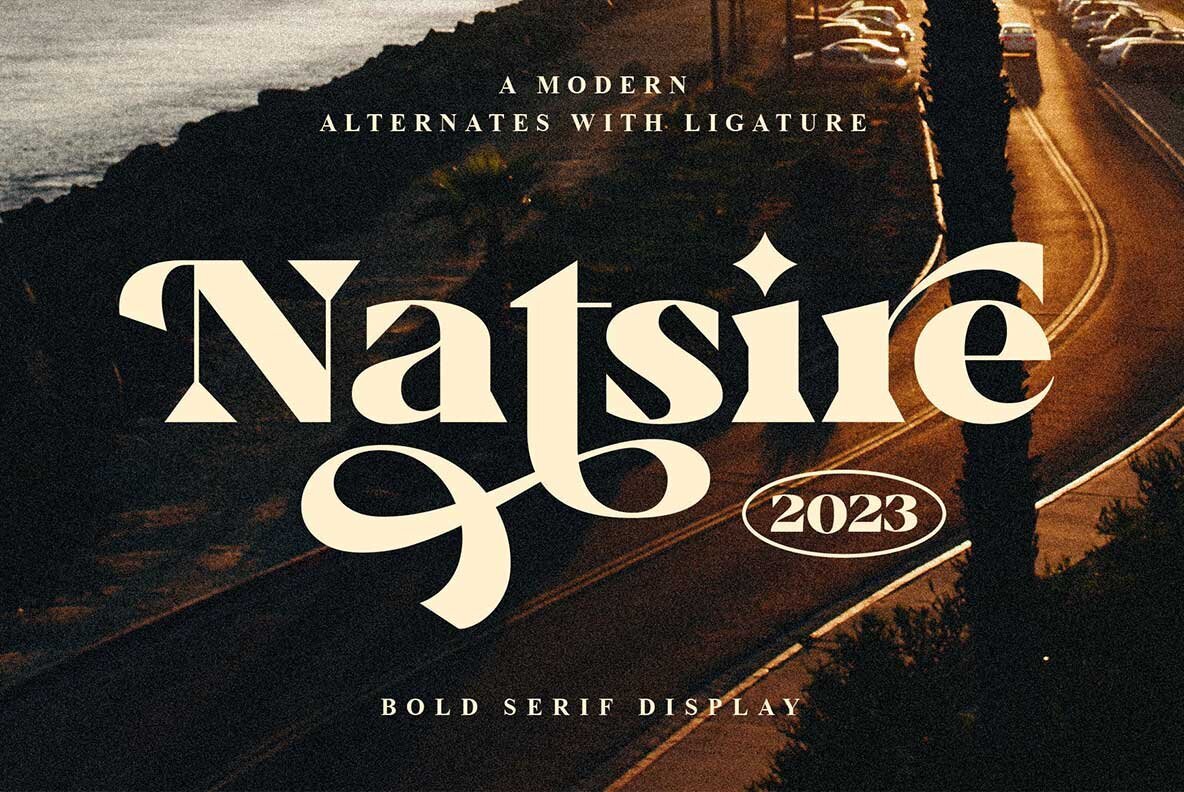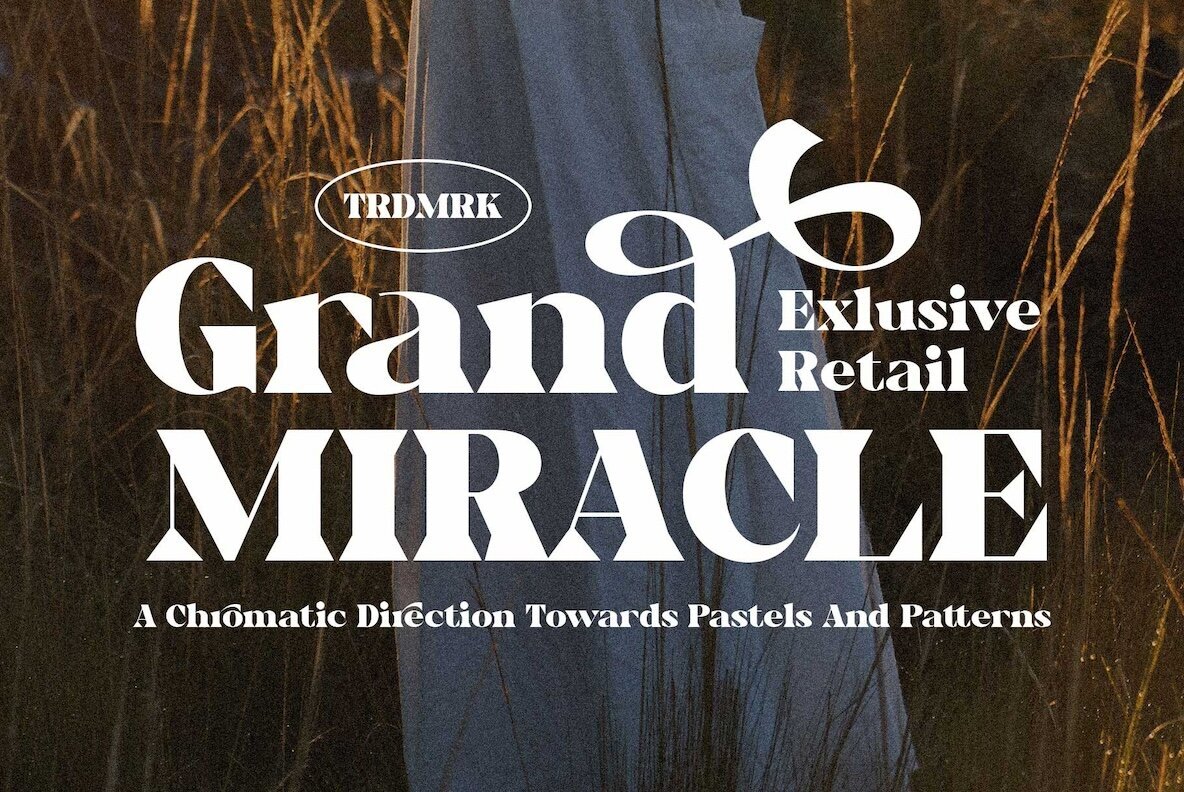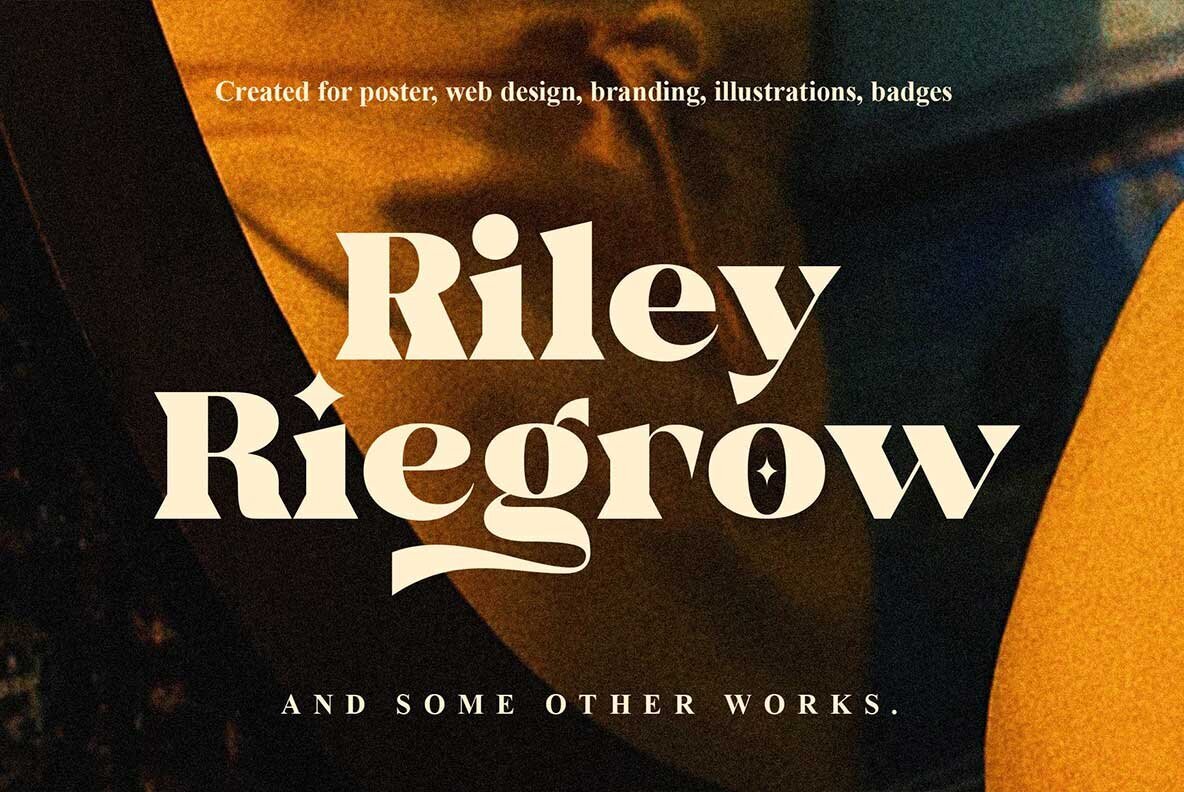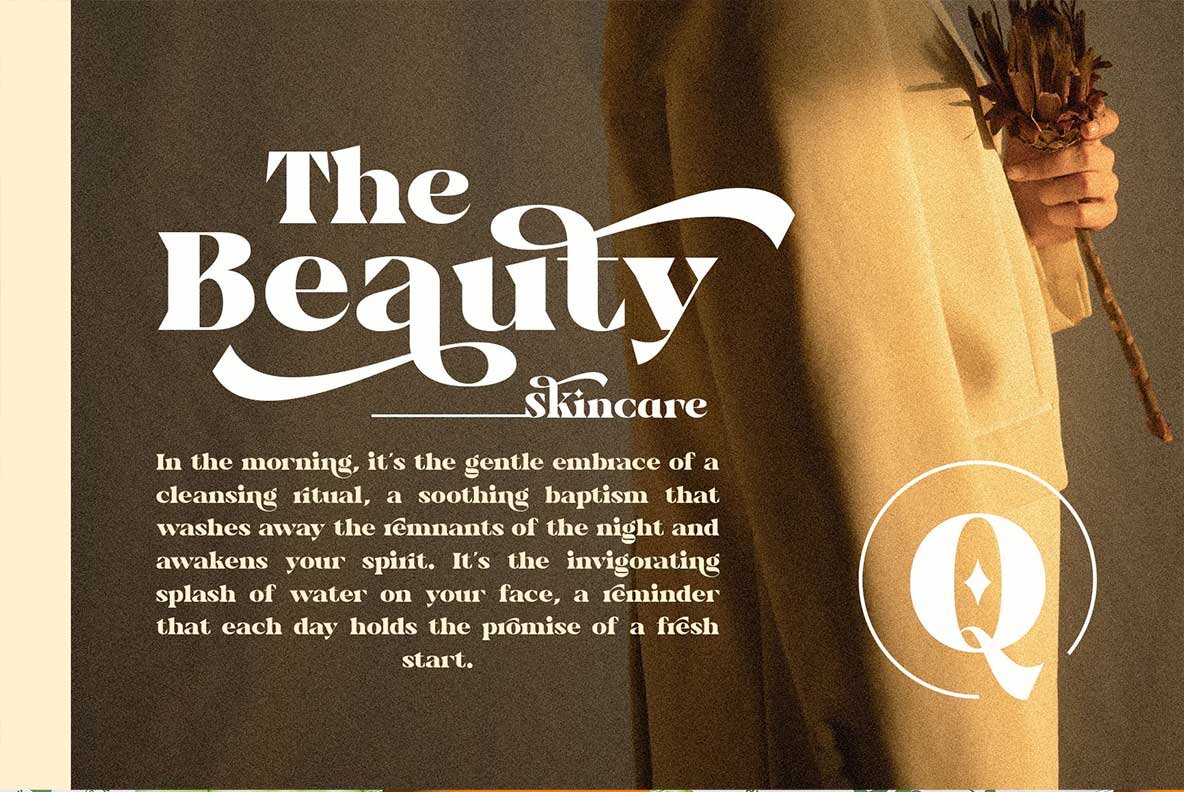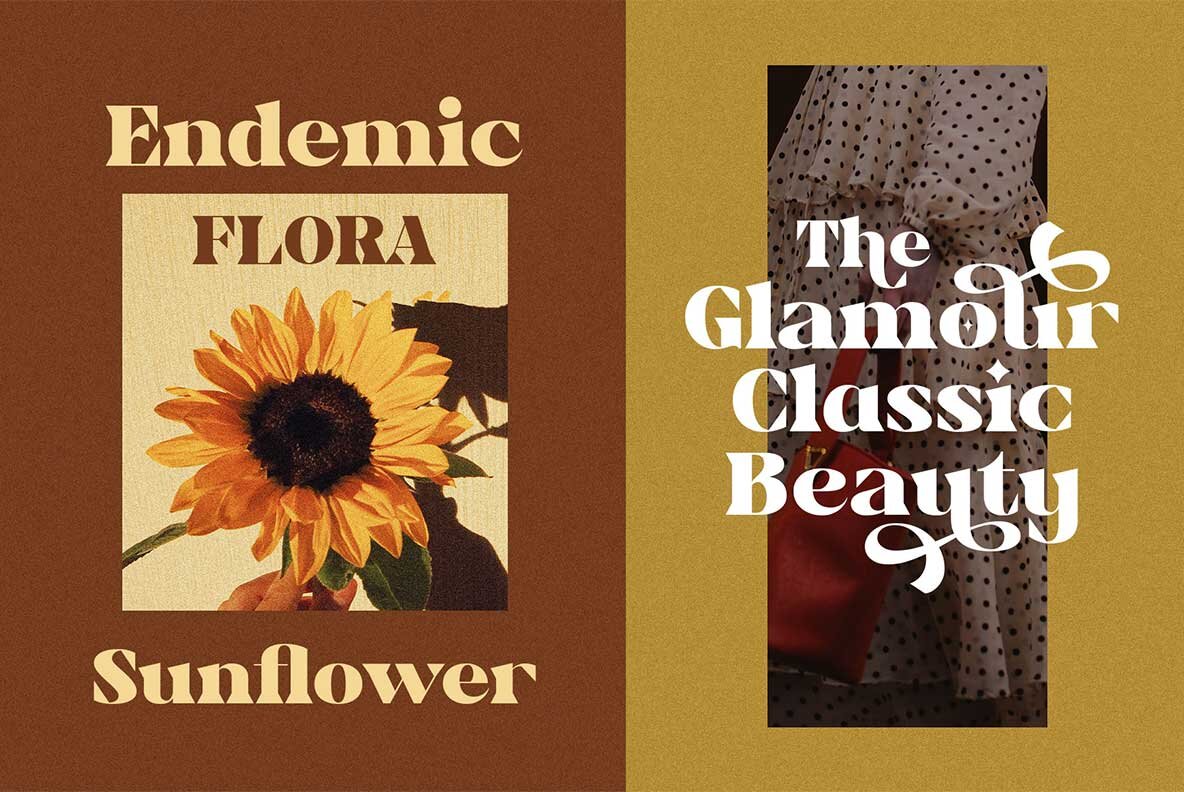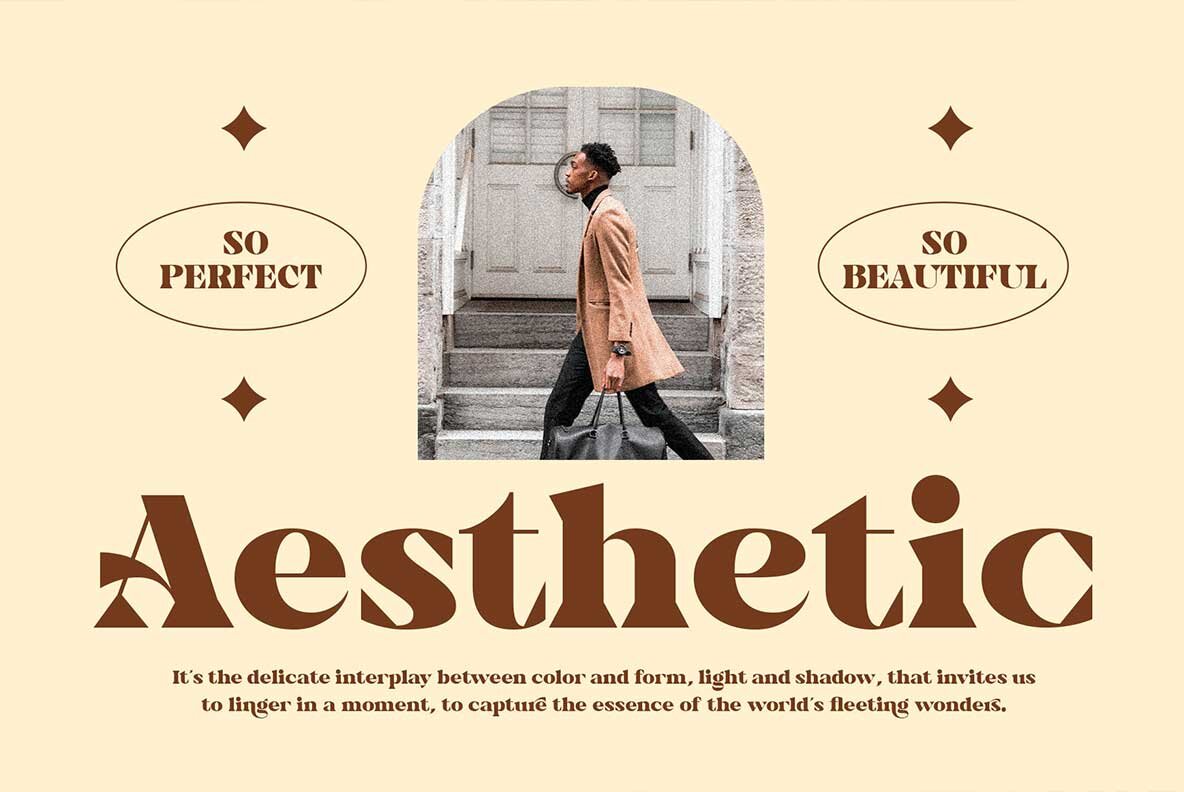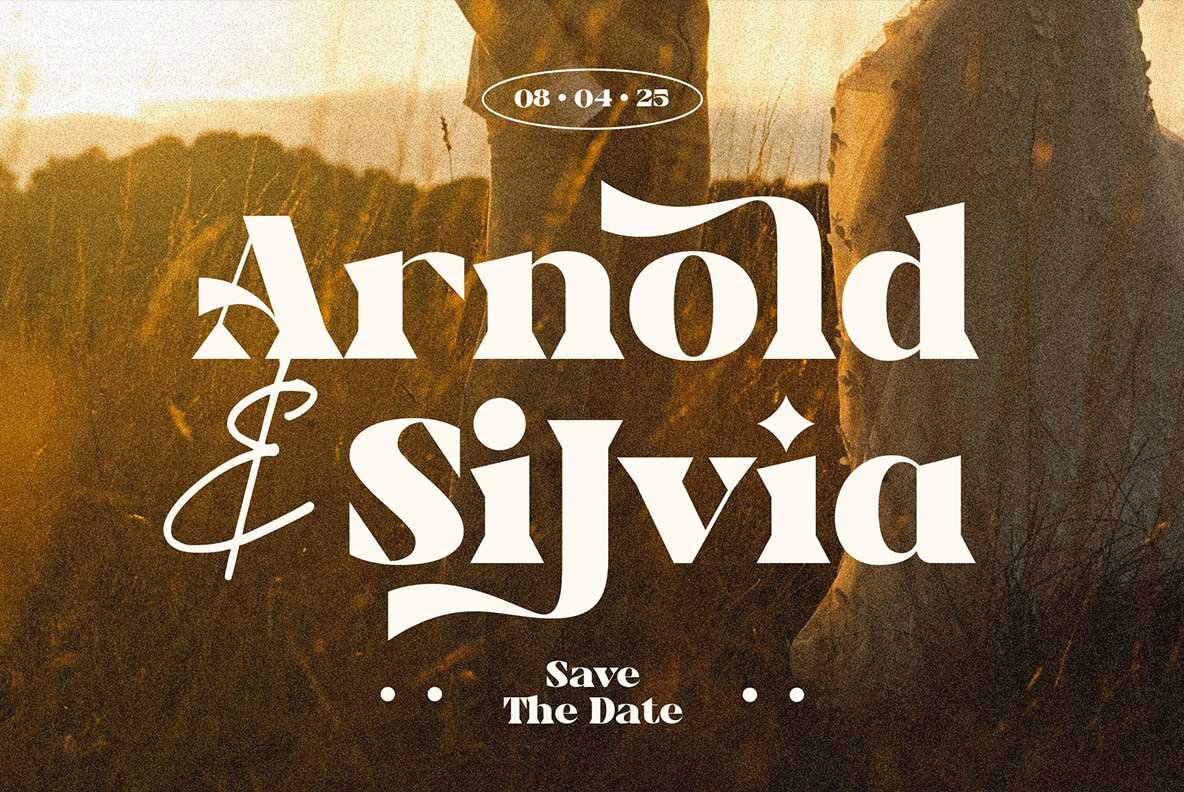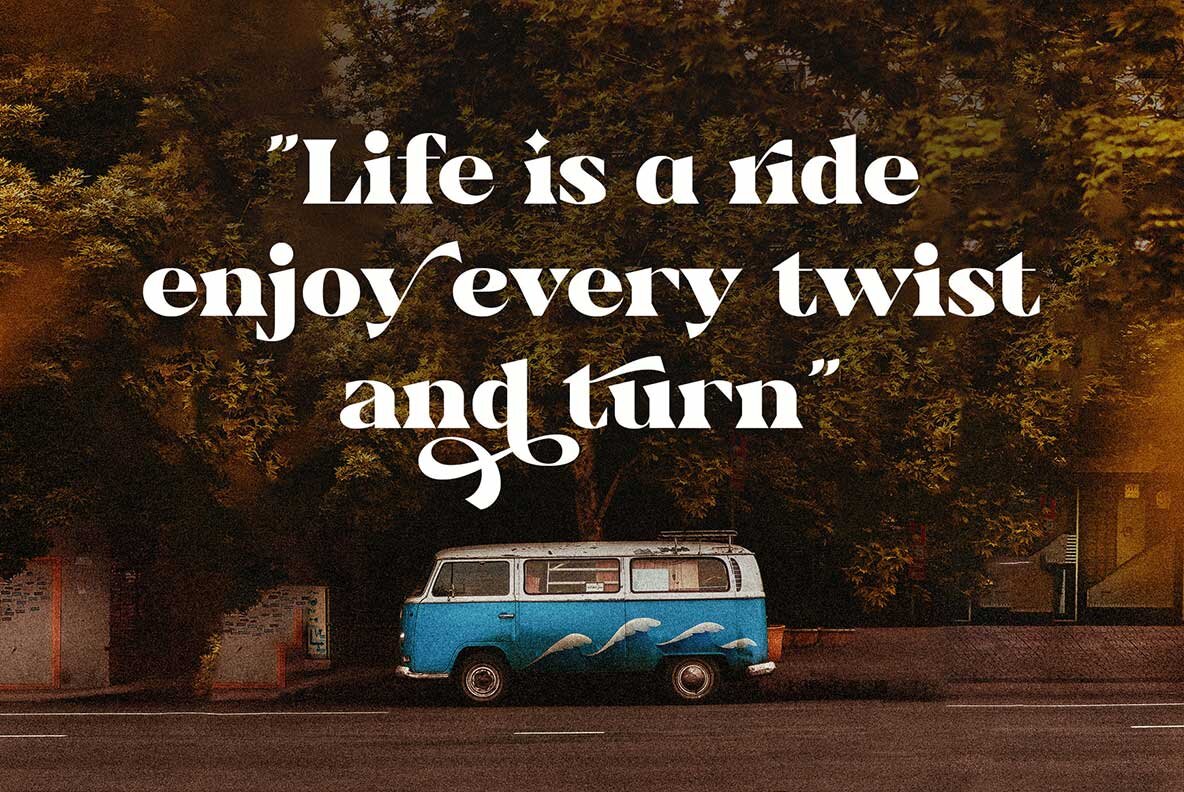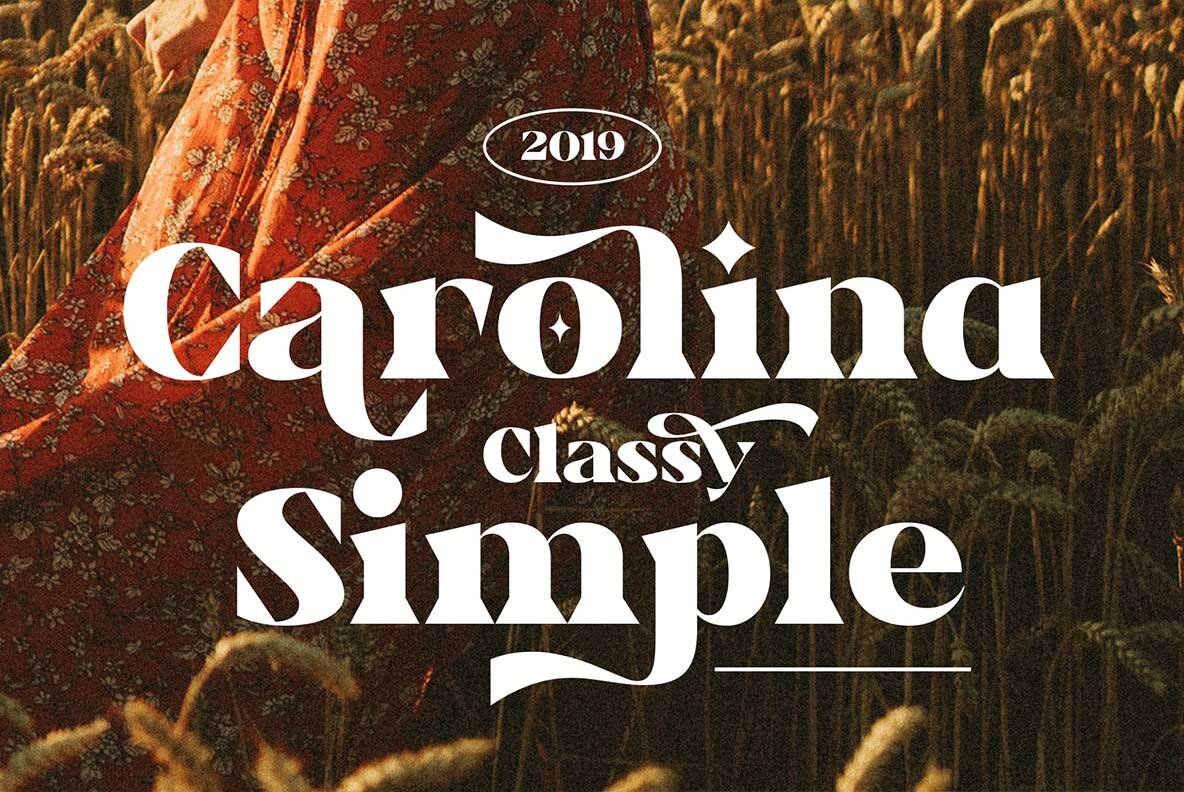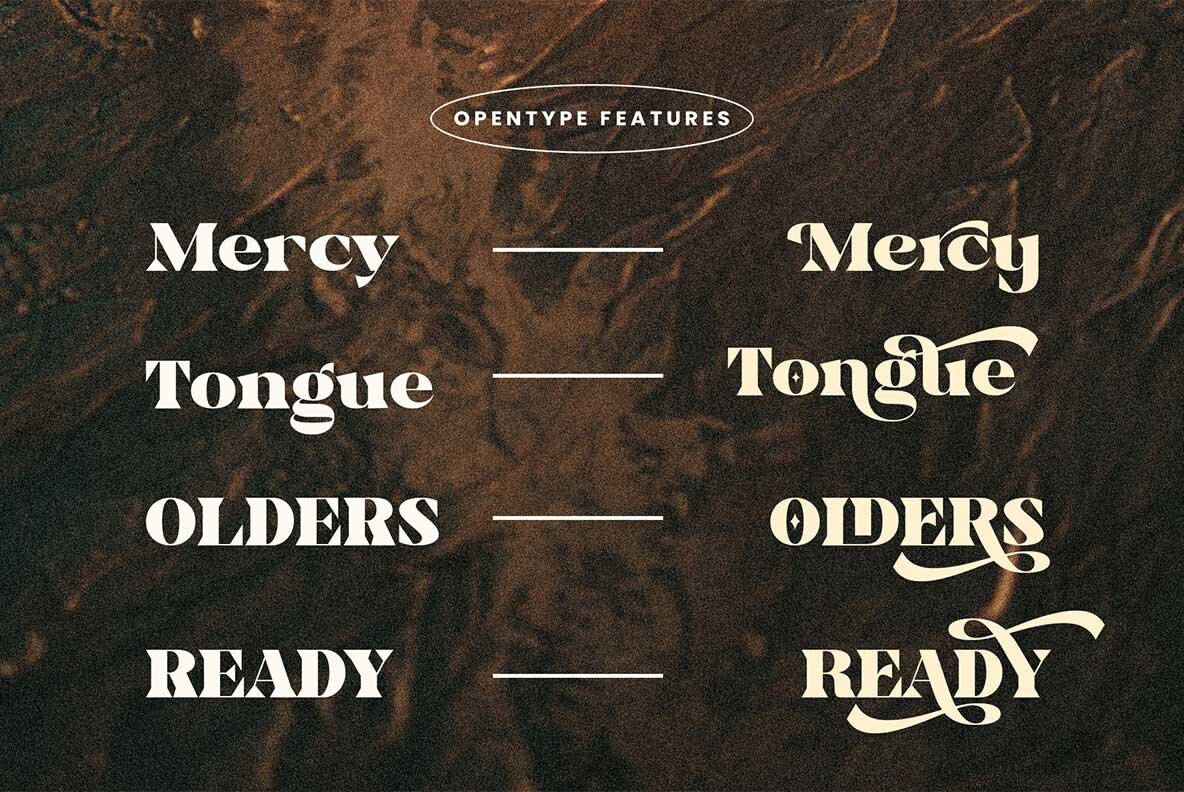
Natsire Font
Natsire Regular
Natsire brings together classic elegance and modern sensibility in a bold serif design. Sharp edges and refined forms come together to create a typeface that stands out in both contemporary and timeless contexts. Drawing on influences from fashion and traditional typography, Natsire offers a distinctive voice for brands aiming to communicate confidence and sophistication.Natsire Serif Typeface
The extensive set of stylistic alternates and ligatures makes Natsire highly versatile. Use it for logotypes, editorial layouts, wedding invitations, and high-impact posters. The thoughtful design details present a luxurious look, whether used digitally or in print. Features